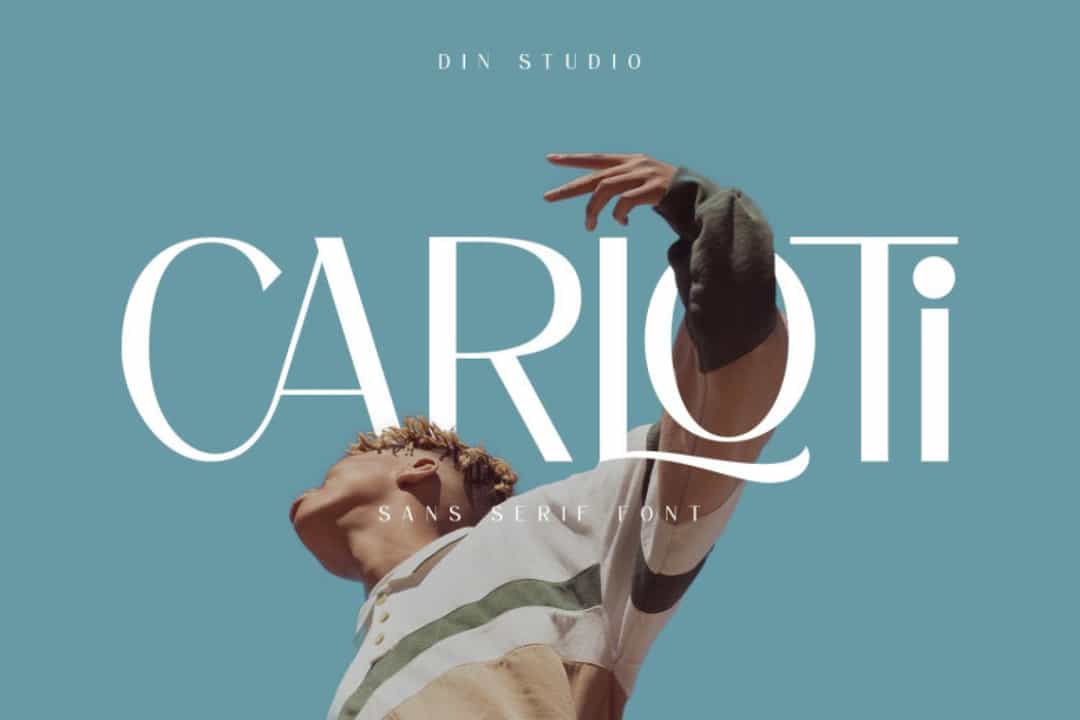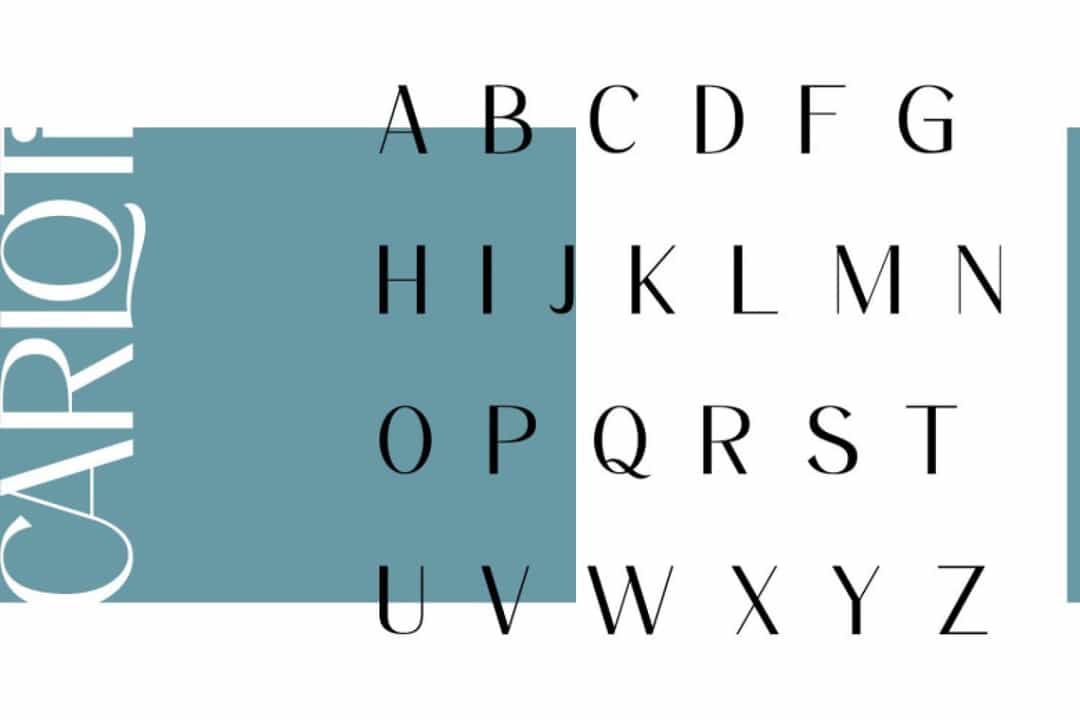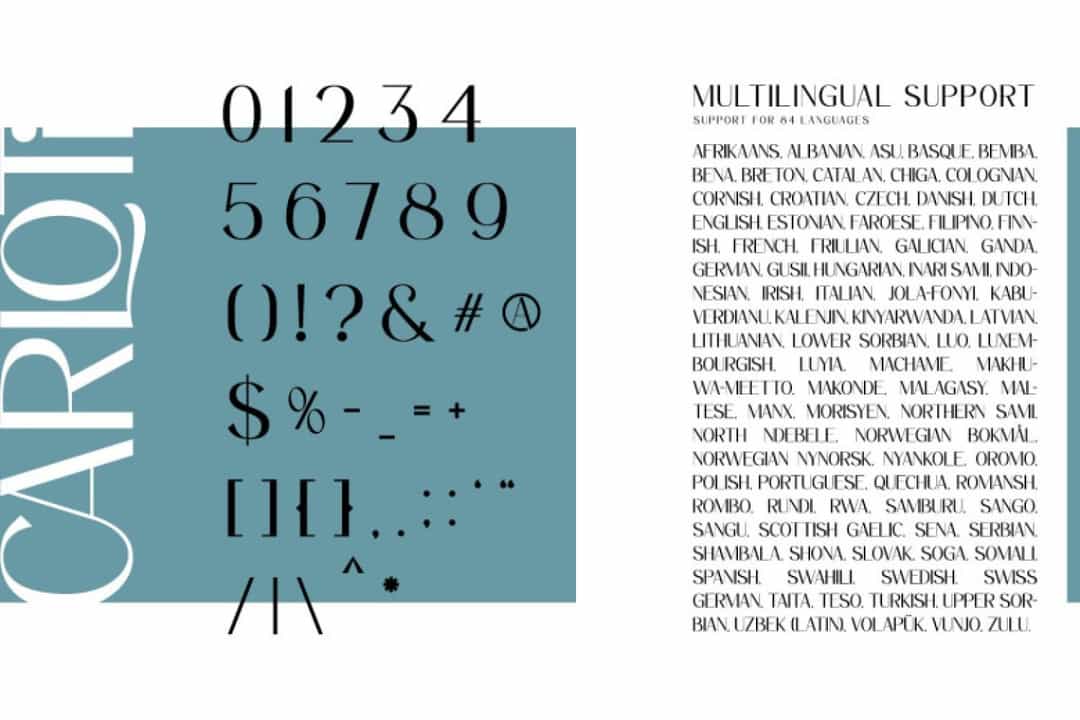
Carloti is an exquisite sans serif uppercase typeface designed to transport you into a world of fashion! We hope that using its elegant and passionate font will enable you to enhance your designs, increase sales or leave a lasting impression.